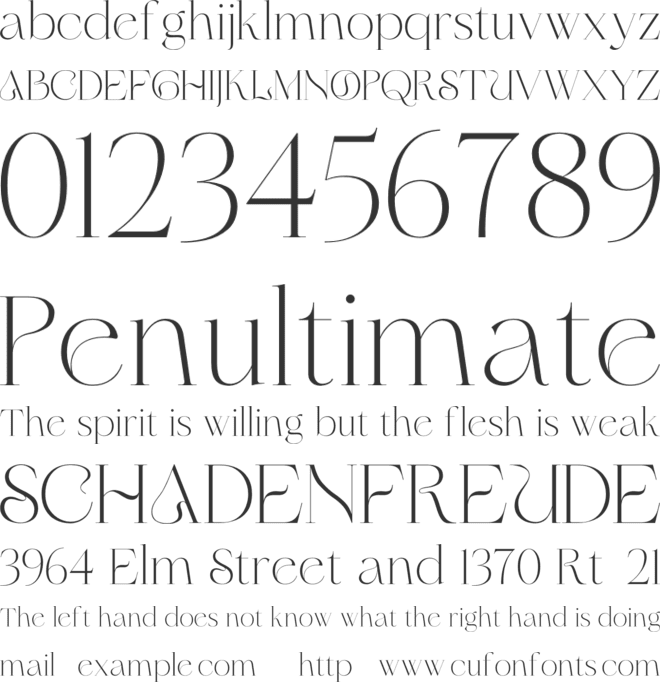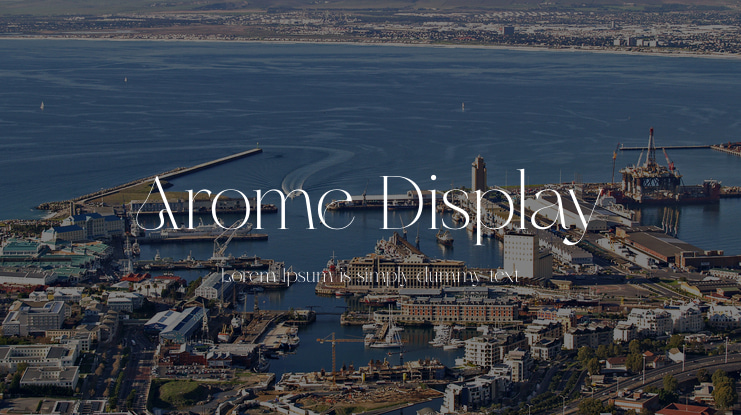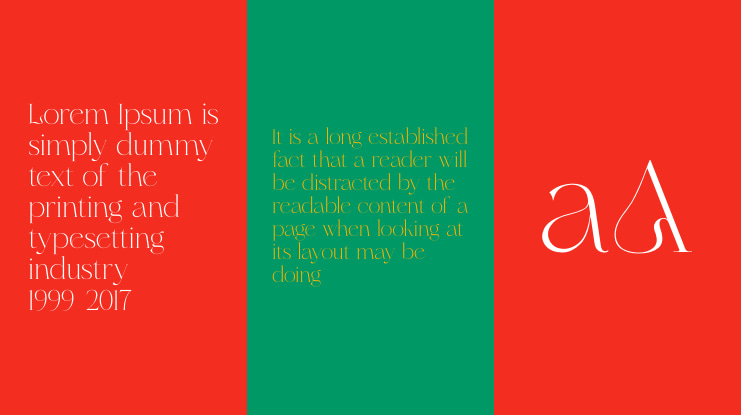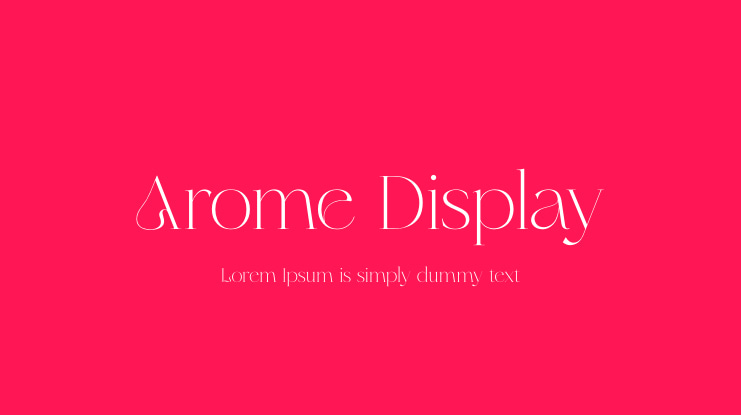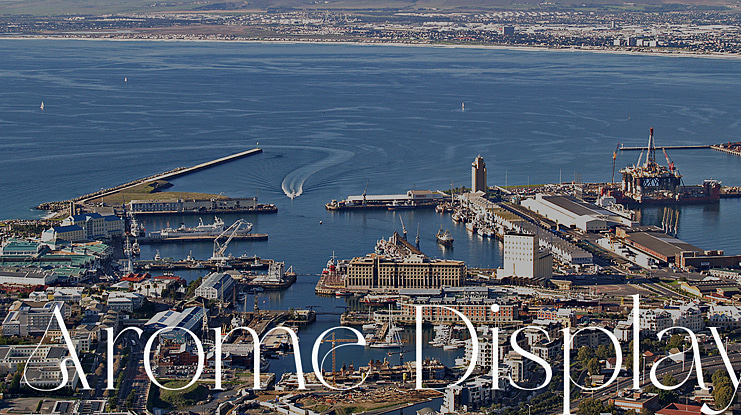
Arome Display Font
Introducing, Arome Typeface. It is the new serif display typeface that will bring in your projects a touch of luxury and style. Arome Typeface is well-suited for advertising, layout design for quotes or body copy, best used as a display for headings, logos, branding, magazines, product packaging, invitations. logotypes, editorial design and much more.